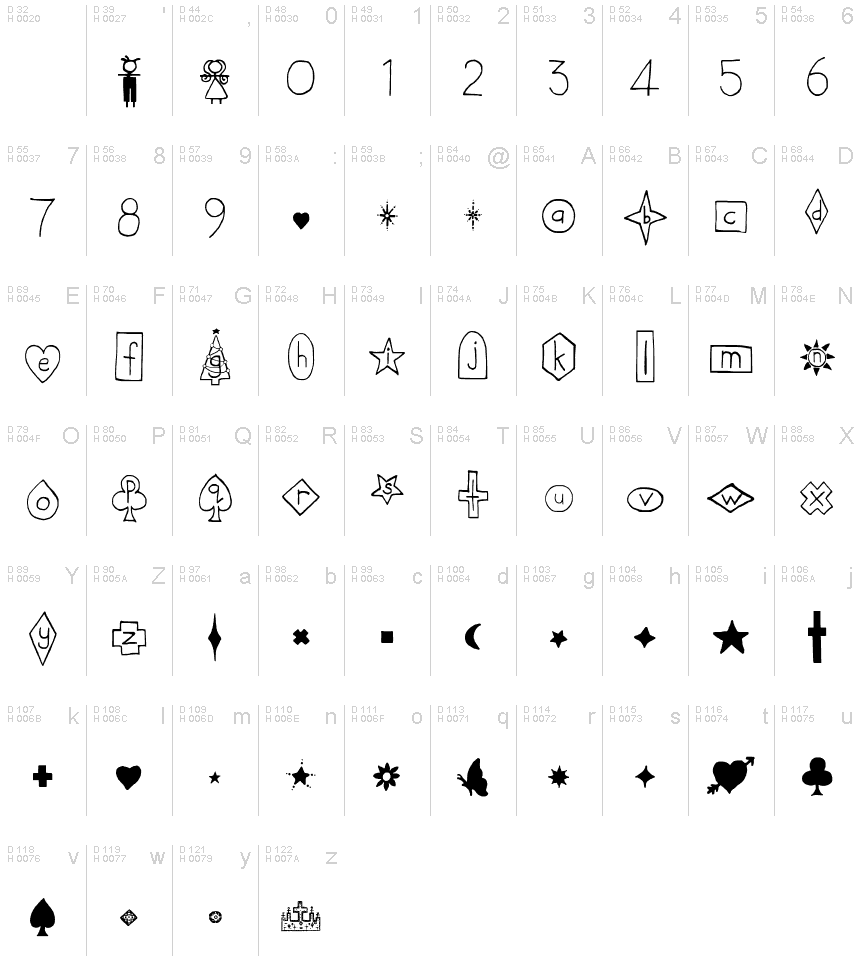
Friendship Bracelets Regular
Friendship Bracelets, a captivating display font designed by Shelley Evans, adds a touch of whimsy and charm to any project. With its semi-light weight and decorative style, this font is perfect for crafting unique invitations, greeting cards, or scrapbook designs. Its playful nature makes it ideal for children's book covers and posters. Friendship Bracelets also shines in digital media such as website headers, social media graphics, and logo designs. Embrace the delightful aura of Friendship Bracelets to infuse your projects with joy and creativity.
A digital Friendship Bracelet